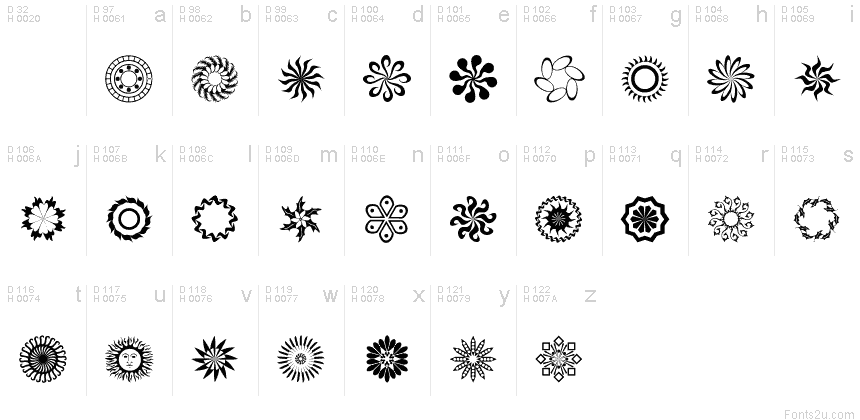
runningNcircles
Running N Circles, Gabrielle Gaither's free esoteric dingbat font from 1998, gathers suns, looping rosettes, and pinwheel-like emblems into a lively, hand-drawn symbol set. The motifs feel folk-art and slightly mystical, with repeating circles, teardrop petals, and flame shapes that keep the collection cohesive without making it rigid.
This free font works well anywhere ornamental marks need more personality than plain dividers: poster borders, album art, zines, tarot or astrology packaging, and scrapbook pages. Use it for spot graphics, chapter breaks, title cards, or small badge-like accents when you want round, radiating forms that read more like symbols than simple decoration.